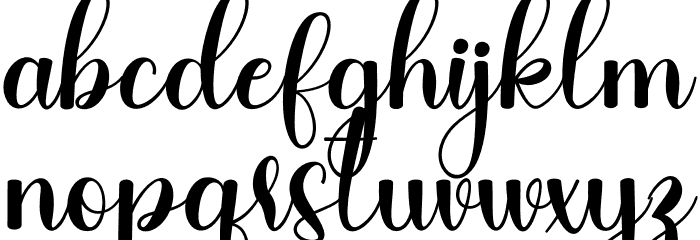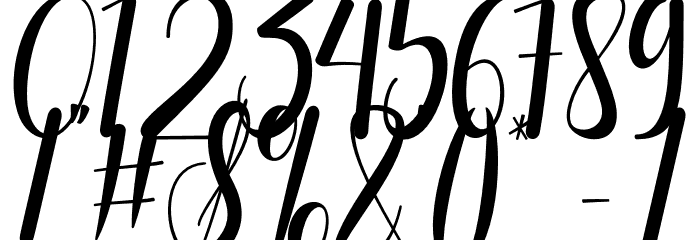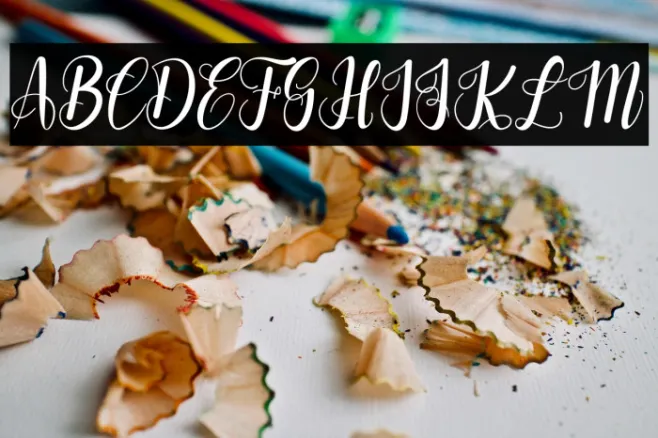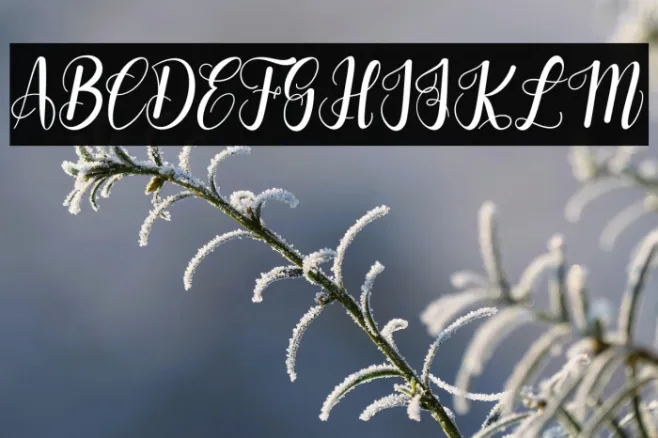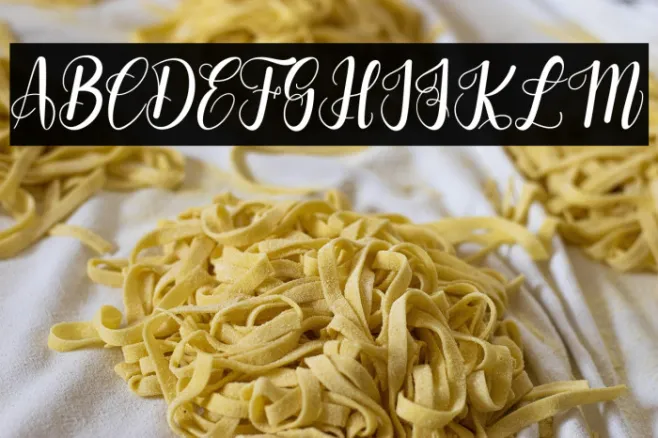
Kathiya Font
This elegant script font features a flowing, cursive style with intricate loops and swashes that give it a sophisticated and artistic appearance. The uppercase letters are characterized by their tall, graceful forms, while the lowercase letters maintain a consistent, fluid connection, enhancing the font's overall harmony. The numerals are distinct yet maintain the same elegant style, making them suitable for decorative purposes. Special characters are thoughtfully designed, integrating seamlessly with the rest of the typeface. This font's ornate nature makes it ideal for projects that require a touch of elegance and flair.
An elegant script font with flowing, cursive style and intricate loops.
- Font: Kathiya
- Proposed Projects: Ideal for wedding invitations, greeting cards, branding, and luxury product packaging.
- Category: Script
- Use Case: Logos, Invitations, Decorative text